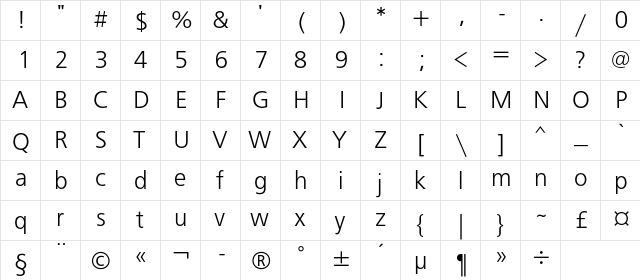
FreeSetLightC Regular
Design Context for FreeSetLightC Typeface
FreeSetLightC is a composed and adaptable typeface that performs quietly and consistently across a wide range of design contexts. The delicate stroke weight brings airiness and refinement to layouts.